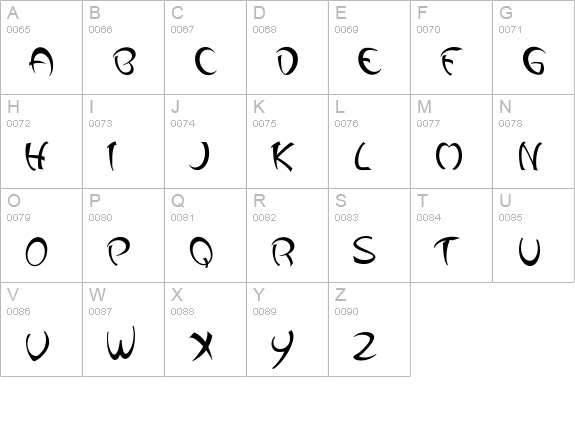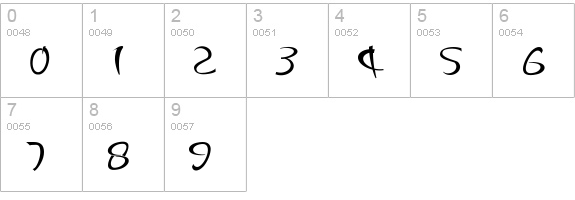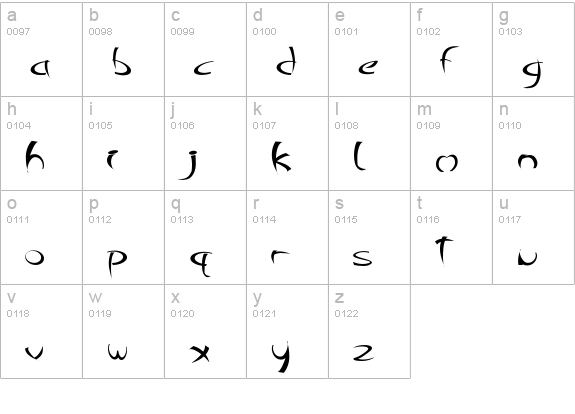
Changstein Font Details
Introducing Changstein font - a modern and stylish typeface perfect for a wide range of design projects. With its sleek lines and elegant curves, Changstein font exudes sophistication and class. This versatile font is ideal for branding, advertising, packaging, and more. What sets Changstein font apart is not only its aesthetic appeal but also its accessibility. This font is available for free download at FontsMarket.com, making it easy for designers and creatives to incorporate it into their work without any hassle. Whether you're working on a logo design, a website, or a print project, Changstein font is sure to elevate your designs and leave a lasting impression. Don't miss out on this incredible opportunity to enhance your design projects with the beauty and elegance of Changstein font. Download it for free today and let your creativity shine!